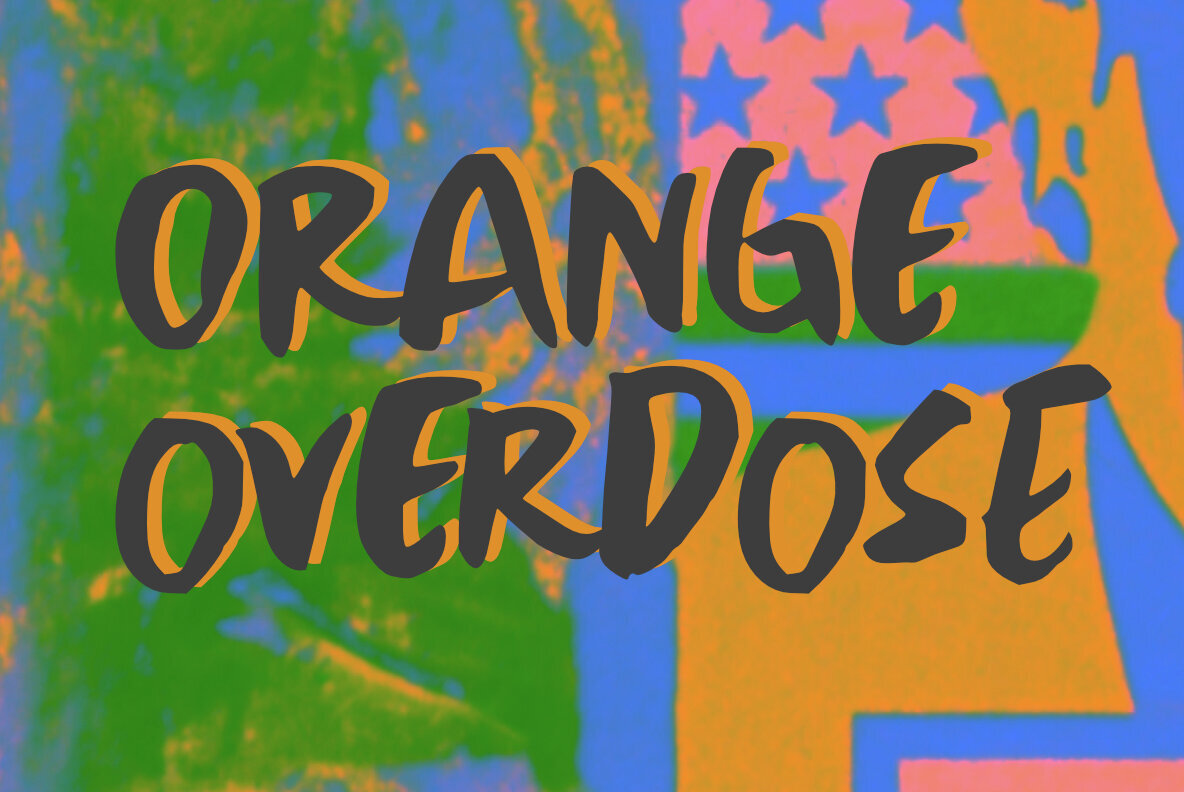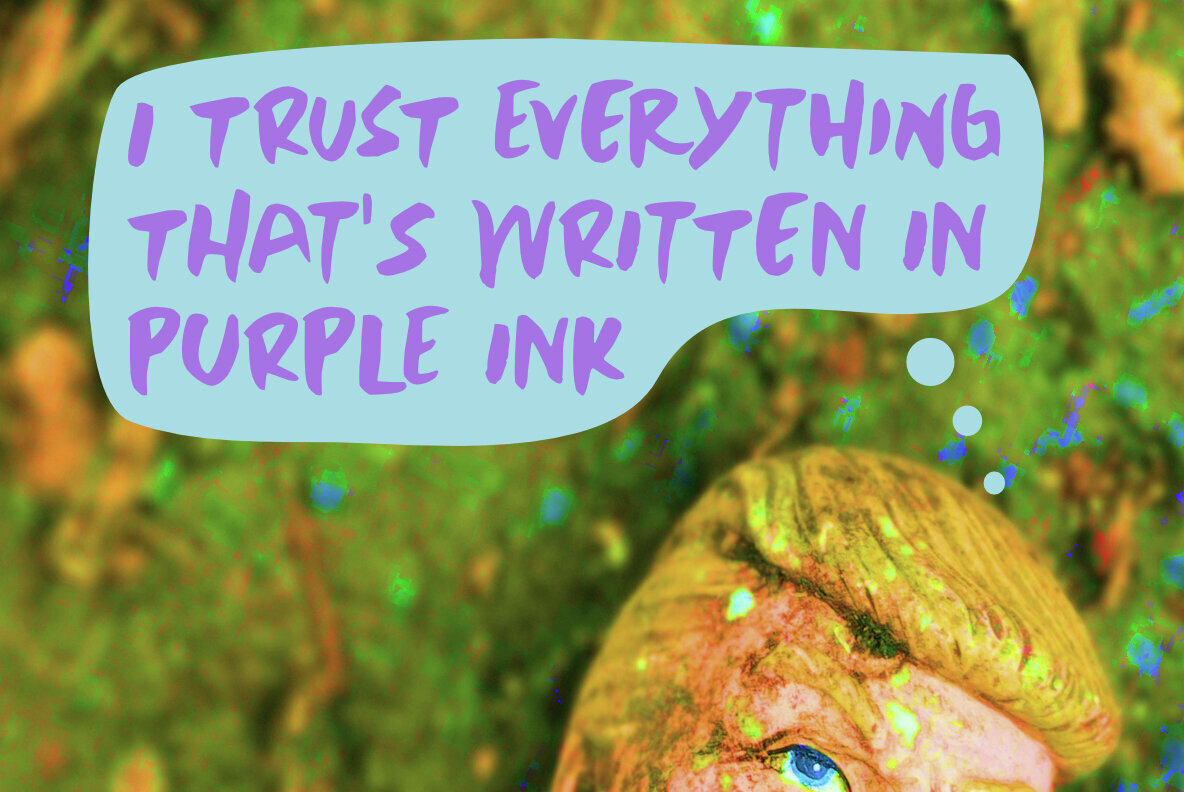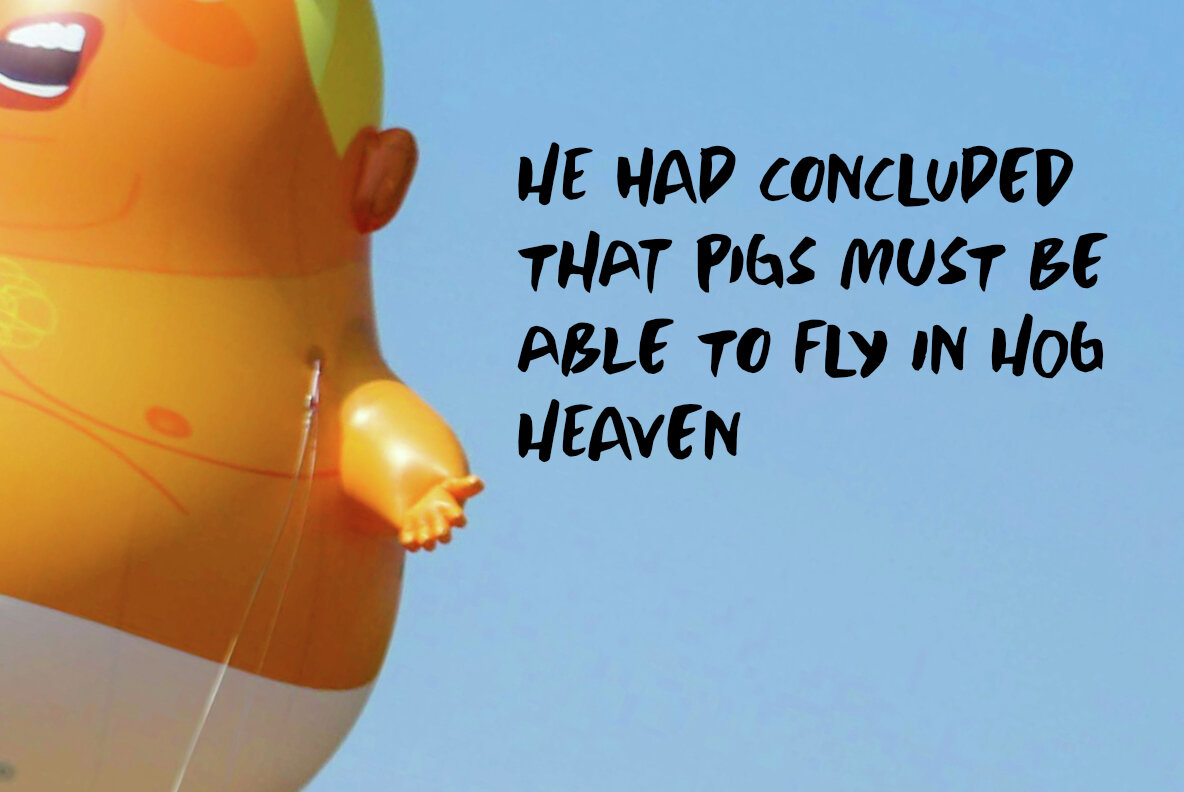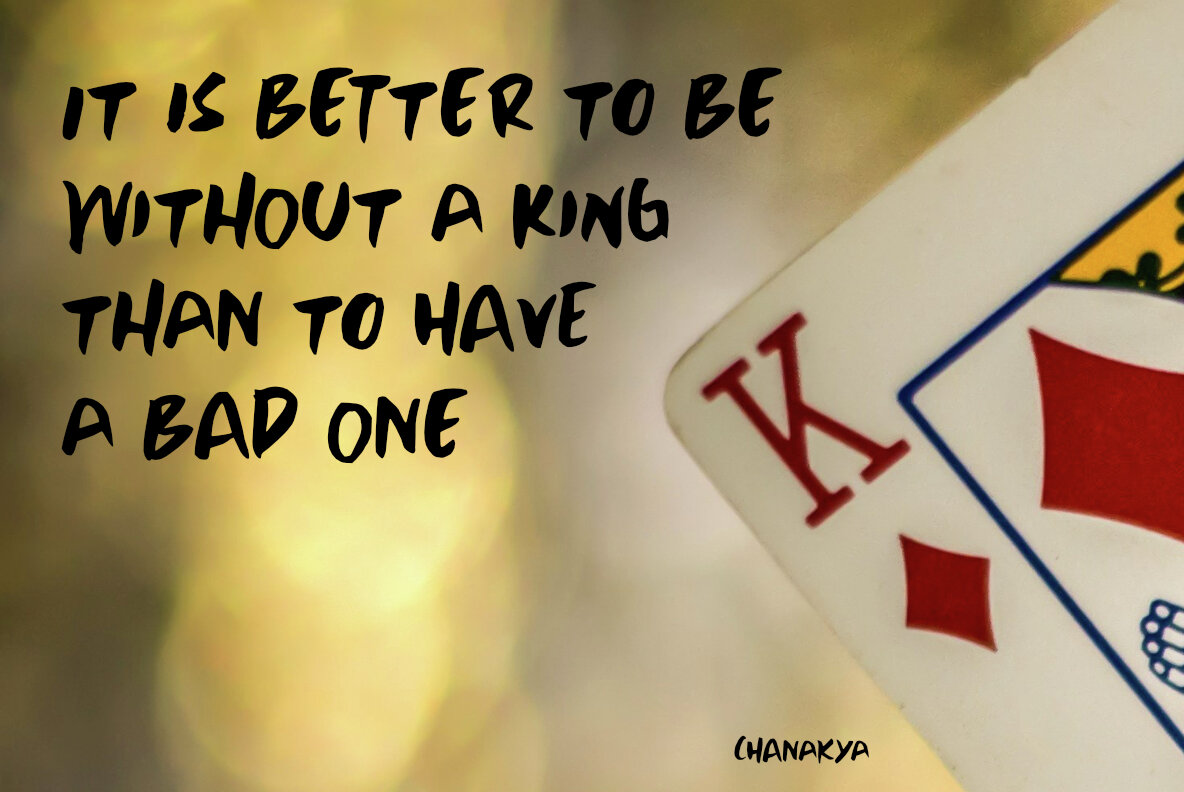
Orange Overdose Font
Celebrate the vibrant essence of 'Orange Overdose,' a dynamic brush type font designed for those who dare to stand out. Crafted in The Netherlands, it embodies the exhilarating spirit of the color orange and its unique associations. Despite any evolving perceptions, this font offers a fresh and energetic approach to design.Orange Overdose: A Bold Brush Type Font